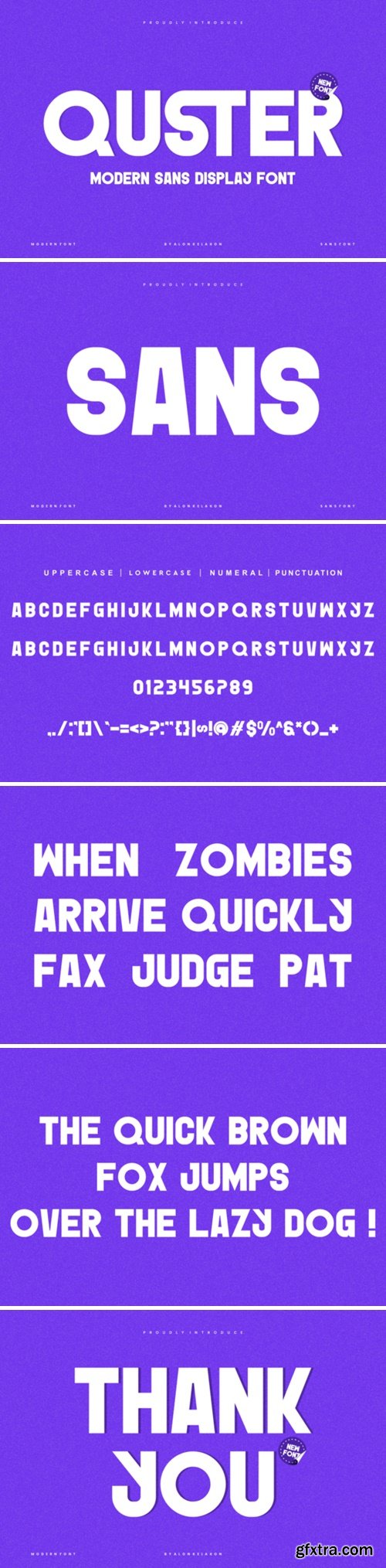
Quster is a bold and assertive sans serif font. No matter the topic, this font will be an incredible asset to your fonts' library, as it has the potential to elevate any creation.
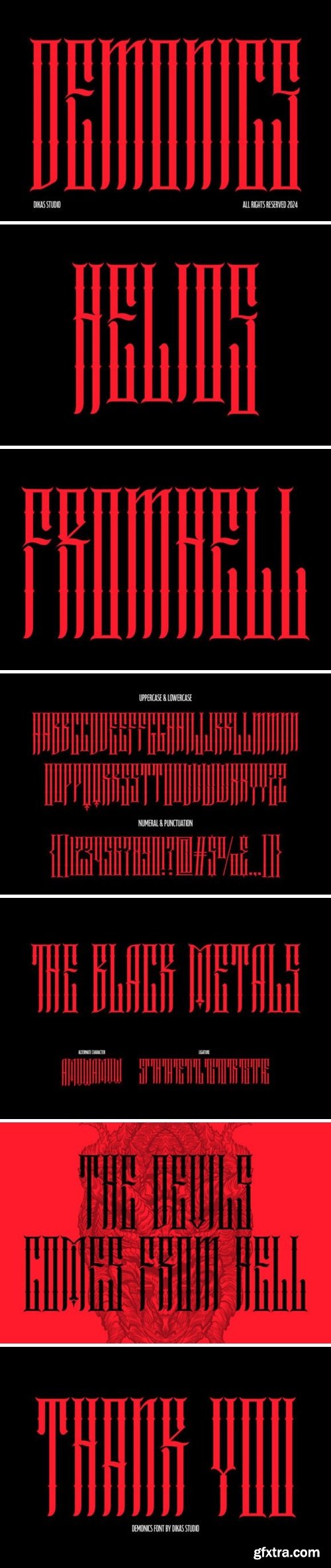
Demonics is a striking blackletter font with tall characters and horn-like serifs, perfect for adding a sinister edge to your designs. Ideal for Halloween posters, spooky t-shirts, eerie merchandise, and more, this font captures the essence of horror and the supernatural. Let Demonics bring a hauntingly bold statement to your creative projects.
Retro Block is a retro slab font that is made for any professional project branding, such as logotype, watermarks, poster, branding, promotions, product packaging, etc. Every letter has a playful retro style design.
Hellmark Font is a striking display typeface that draws inspiration from the twisted, jagged beauty of the spiny stalk—a symbol of danger, sharpness, and the eerie side of nature. With its aggressive, spiky edges and unsettling contours, this font exudes a sense of horror and dread. The distorted, broken lines give it a fractured, almost organic quality, as if the letters themselves are growing from dark, twisted roots or creeping vines. Perfect for graphic design projects that demand a bold, spine-chilling aesthetic, Hellmark is ideal for horror-themed posters, eerie movie titles, Halloween promotions, and spooky branding.
Want to add a balanced, refined, elegant and stylish touch to your design? Look no further than New Essien. It is perfect for combining with invitation card designs, company logos, movie titles, movie names, business cards, book titles, brand names and various other designs. New Essien Serif is a refined serif font that exudes sophistication and elegance. Its stylish alternations and ligatures make this font a perfect partner for any project.
Fulood is a fun and festive display font perfect for Christmas designs. It features bold, playful letters with a holiday-inspired style, making it ideal for decorations, cards, and posters. Its cheerful look adds a warm, festive touch to any Christmas project!
Dive into the lustrous allure of Megaline, a masterfully designed display serif font. Each letter unfurls an exquisite meld of timeless charm and modern flair, meticulously shaped with eye-catching, robust serifs and flawless strokes. This supremely elegant typeface showcases both versatility and an polished sophistication, seamlessly fitting for high-end branding elements, powerful editorial designs and tasks demanding a sprinkle of finesse. Megaline not only captivates with its visual allure, but also guarantees a lasting, unforgettable style impact.